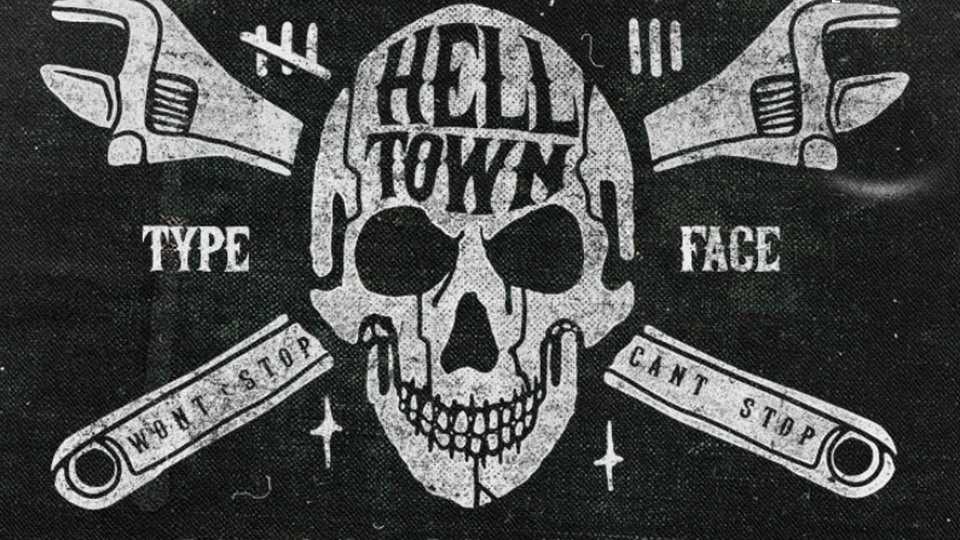
Download Helltown font, a handmade lettering typeface with vintage bike concept and the rebel sides of the real man’s passions. Ideal for vintage designs, tattoo, posters, apparel for bikers and music bands and other authentic projects.